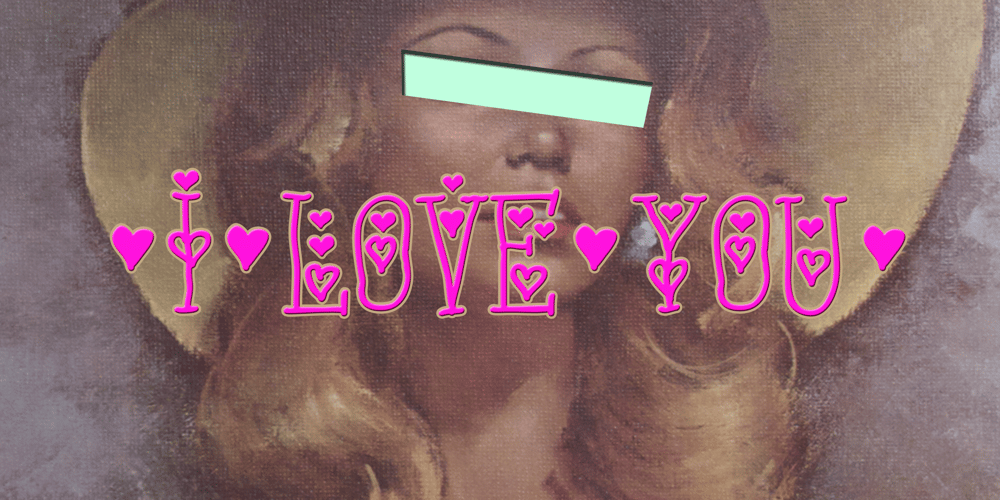
Prince And Princess Charming Font Family was designed by Harald Geisler and published by Harald Geisler. Prince And Princess Charming contains 2 styles and family package options. Prince and Princess Charming are very extravagant and extroverted about their feelings. Prince Charming puts a heart on everything. If you’re convinced that you love you’ve got to go with Prince Charming. Compared to the Prince, Princess Charming puts more hearts on every letter. Convince that you have to be loved: follow Princess Charming. As you would expect from Aristocrats the family members are fluent in many languages and have a surprising extensive character set that even covers Cyrillic. Prince and Princess Charming are a part of the Light Hearted Font Collection that is inspired by a recording of Jean Baudrillard with the title, “Die Macht der Verführung” (The Power of Seduction) from 2006. Further inspiration came from the article, “The shape of the heart: I’m all yours”. The heart represents sacred and secular love: a bloodless sacrifice. by British writer Louisa Young printed in EYE magazine (#43) London, 2002.